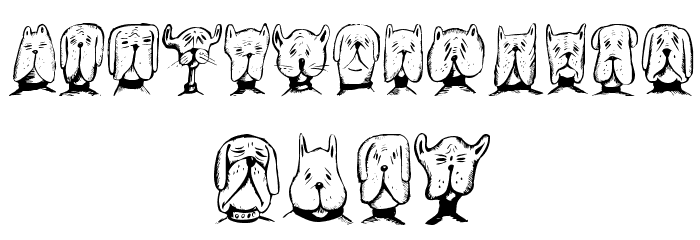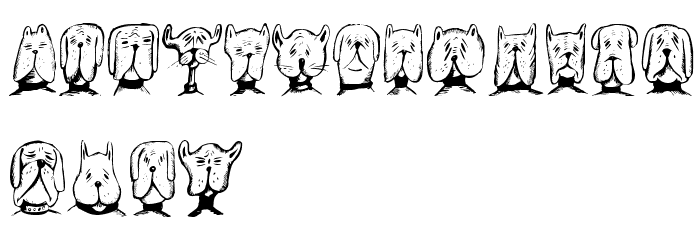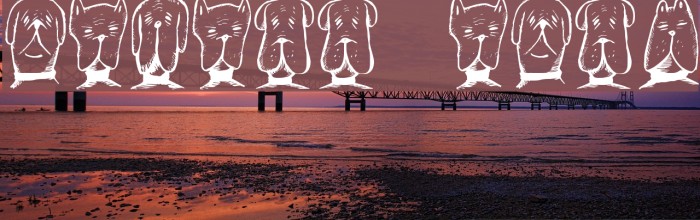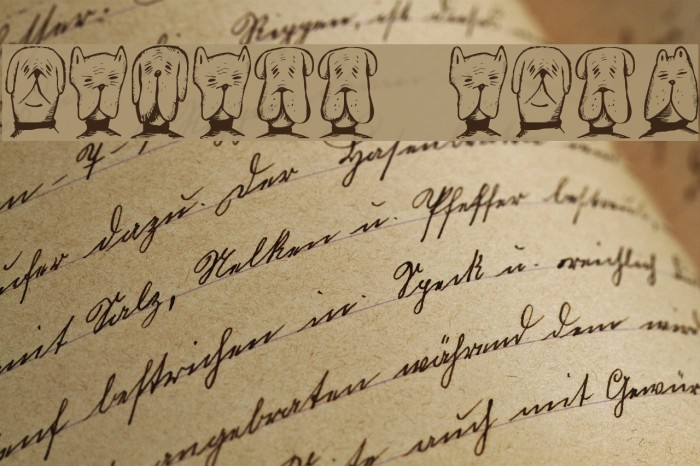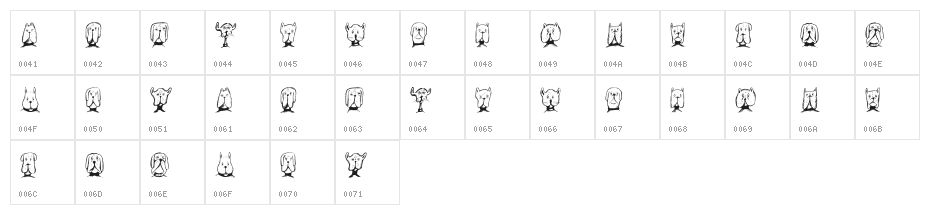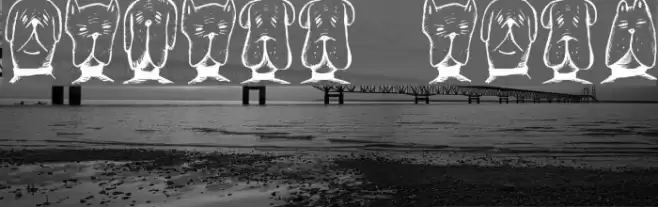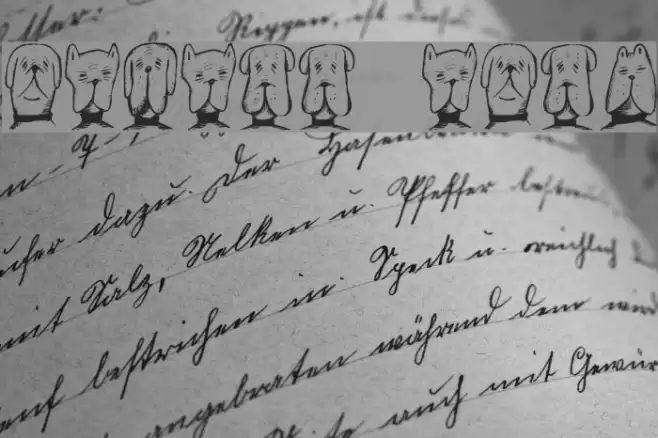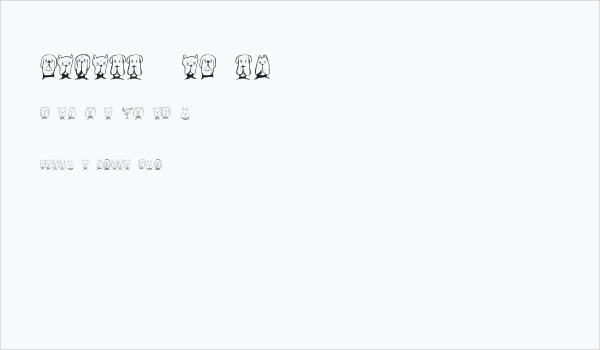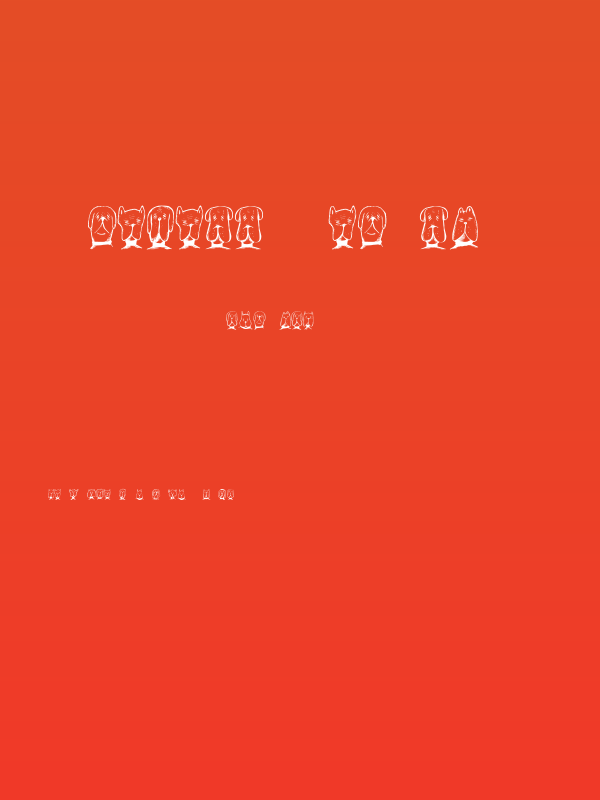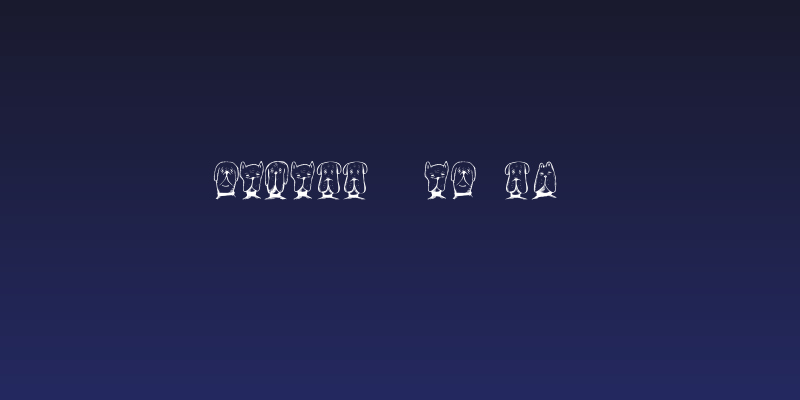
Gebell Regular Font
This playful and whimsical font features a series of dog faces, each representing a different character. The unique design combines elements of illustration and typography, creating a fun and engaging visual experience. Each character is distinct, with expressive features that add personality and charm. The font is highly decorative, making it ideal for projects that require a touch of humor and creativity. Its hand-drawn style gives it a personal and artistic feel, perfect for children's books, playful branding, or any project that aims to evoke joy and amusement.
A whimsical font featuring playful dog faces as characters.
- Proposed Projects: Ideal for children's books, playful branding, greeting cards, and creative posters.
- Overall Style: Whimsical, Playful
- Use Case: Logos, Posters, Children's Books